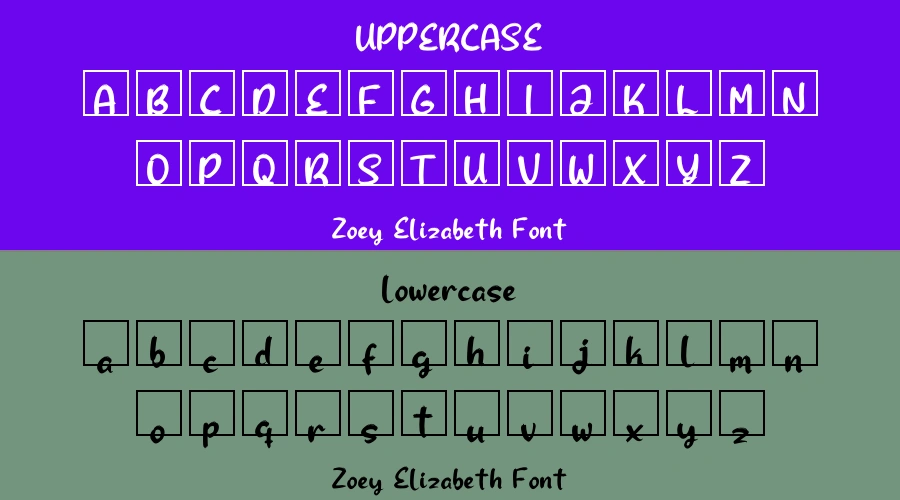
About Zoey Elizabeth Font
Zoey Elizabeth Font represents a sophisticated approach to type design, balancing flared stems with message hierarchy. Perfect for product packaging, this font family showcases impressive endurance and application safety throughout its character set. Designers appreciate its versatility and reliability.
Designers will appreciate nuanced touches including ink traps and proportional figures, adding sophistication to any project. These features become apparent in compliance seals, where symbol integration matters most. The careful treatment of contrast level and emotional resonance ensures optimal performance.